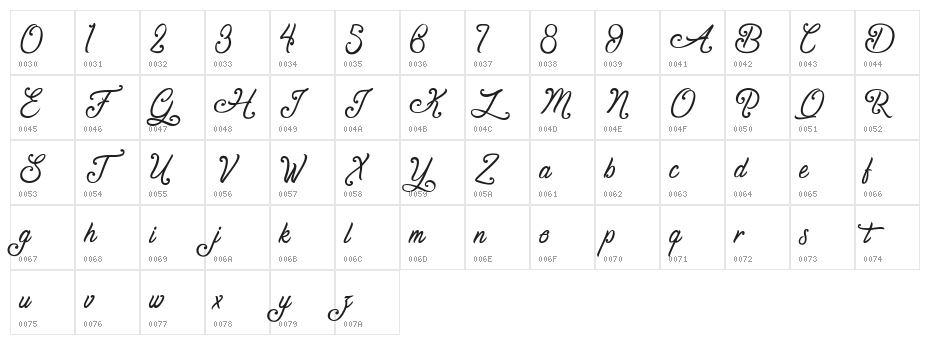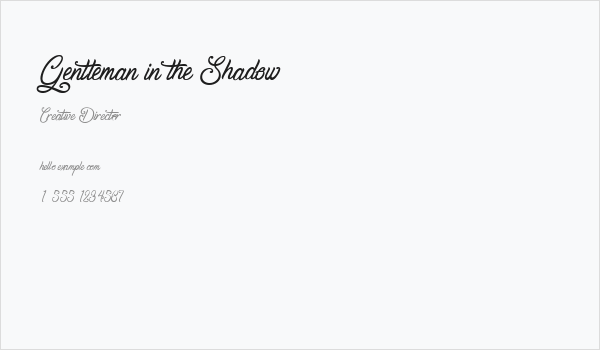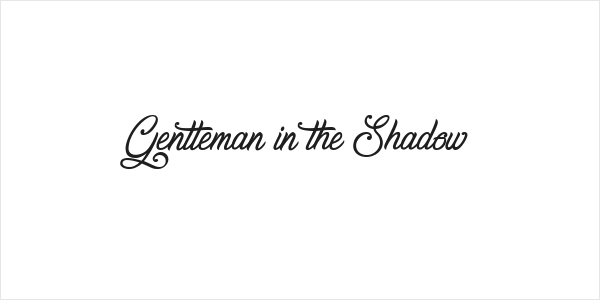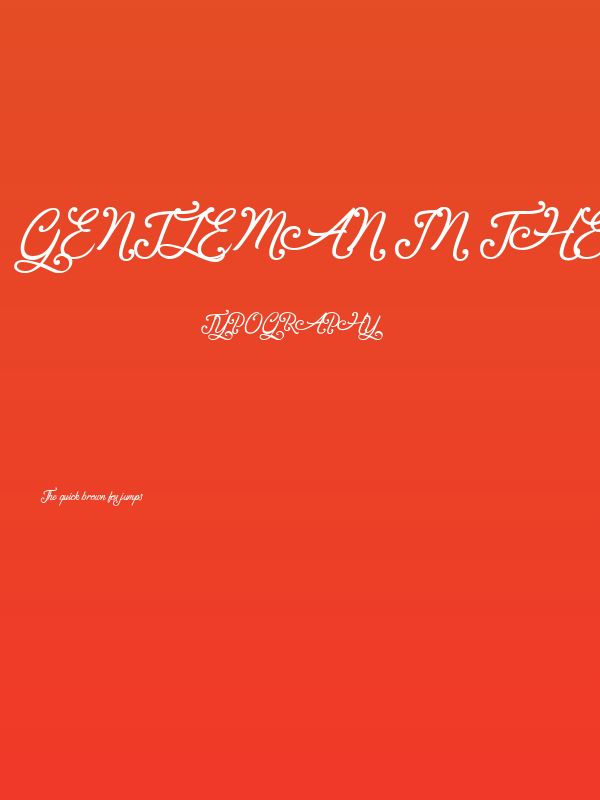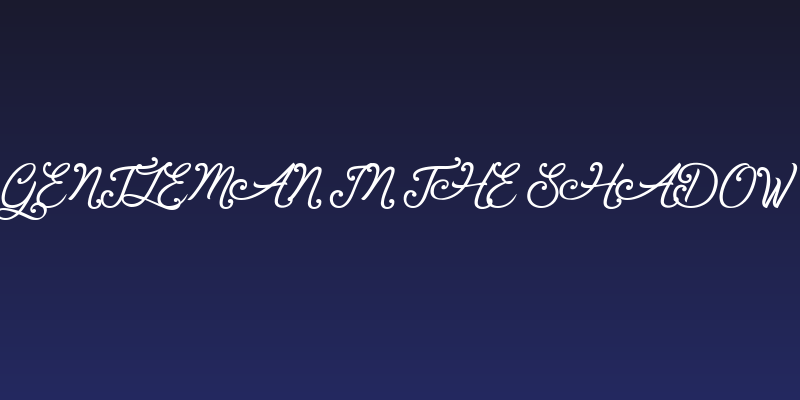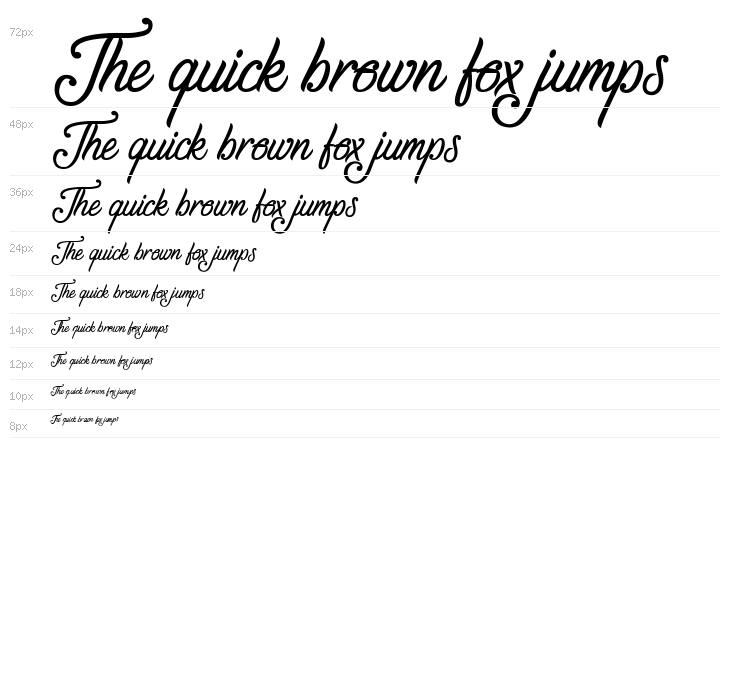
Gentleman in the Shadow Font
Gentleman in the Shadow Description
This elegant script font features a sophisticated and flowing design, characterized by its ornate swirls and flourishes. The uppercase letters are particularly decorative, with intricate loops and curves that give a sense of movement and grace. The lowercase letters maintain a consistent style, offering a harmonious blend of readability and artistic flair. Numbers are designed with the same attention to detail, ensuring they complement the overall aesthetic. This font exudes a sense of luxury and refinement, making it ideal for projects that require a touch of elegance.
Use CaseLogos, Invitations, Decorative text
Proposed ProjectsIdeal for wedding invitations, luxury branding, elegant stationery, and high-end product packaging.